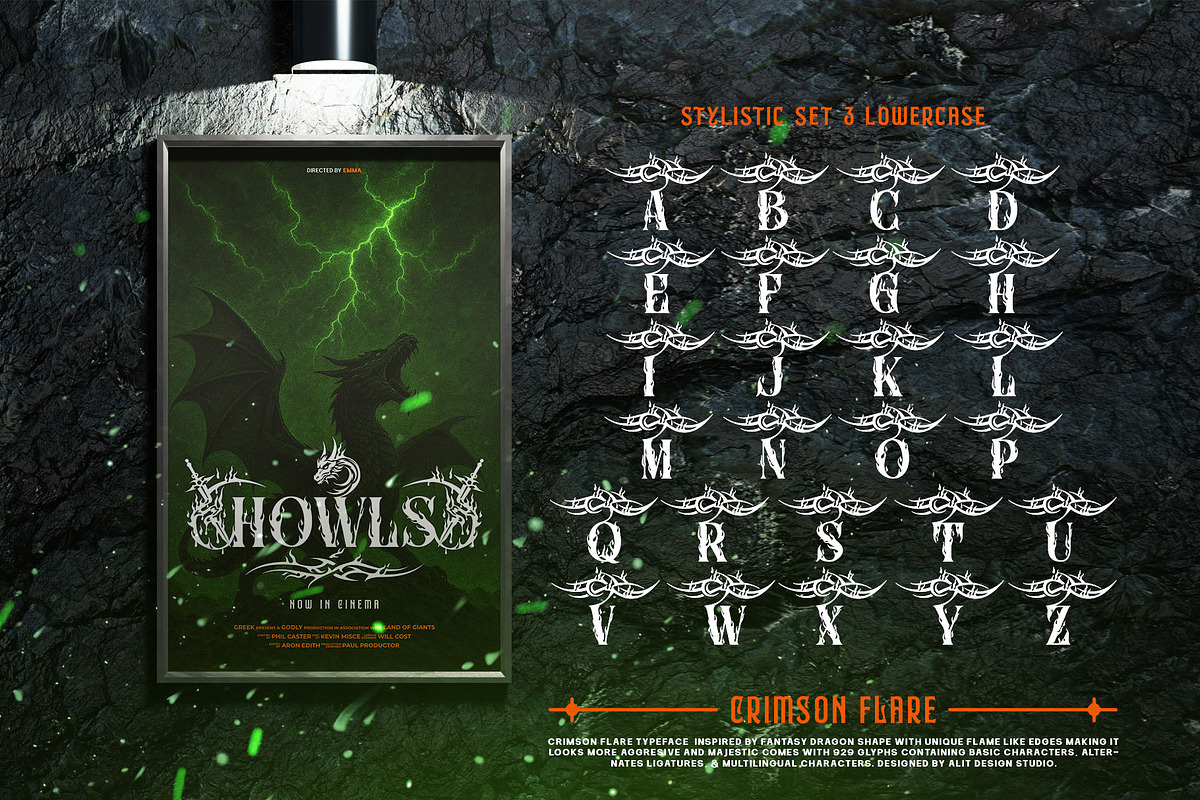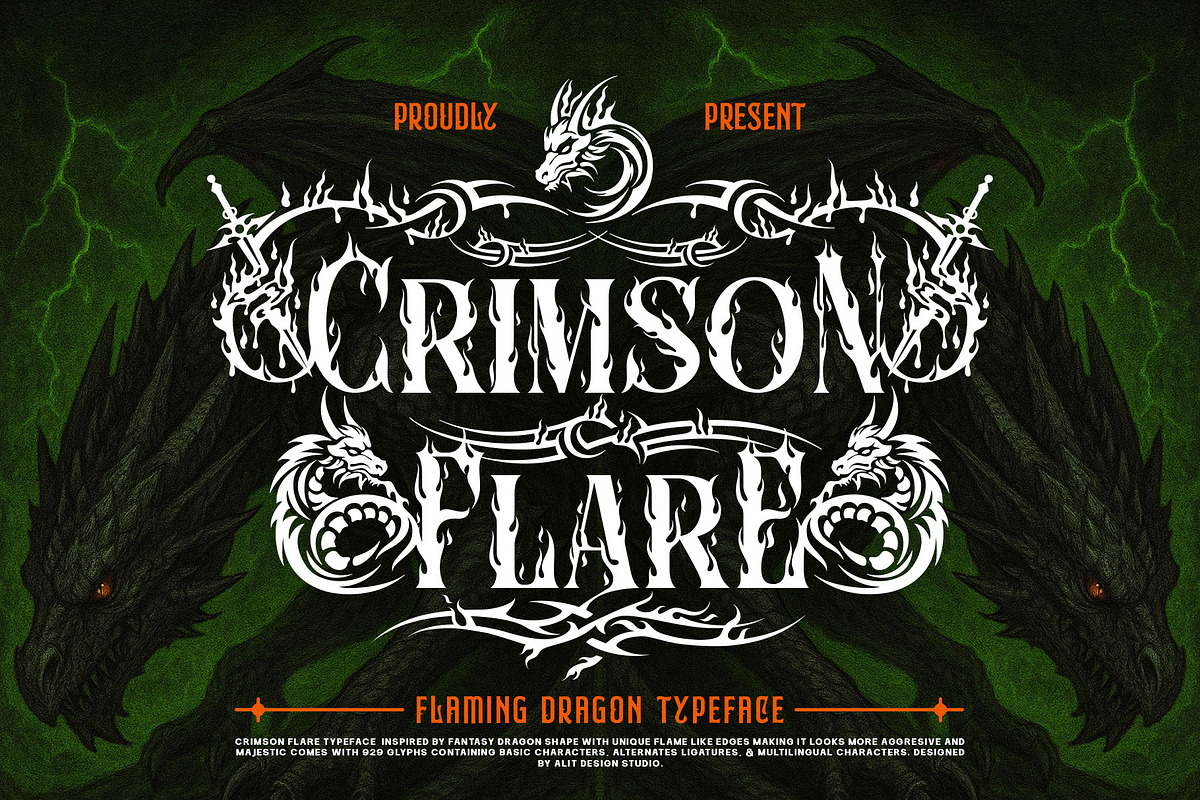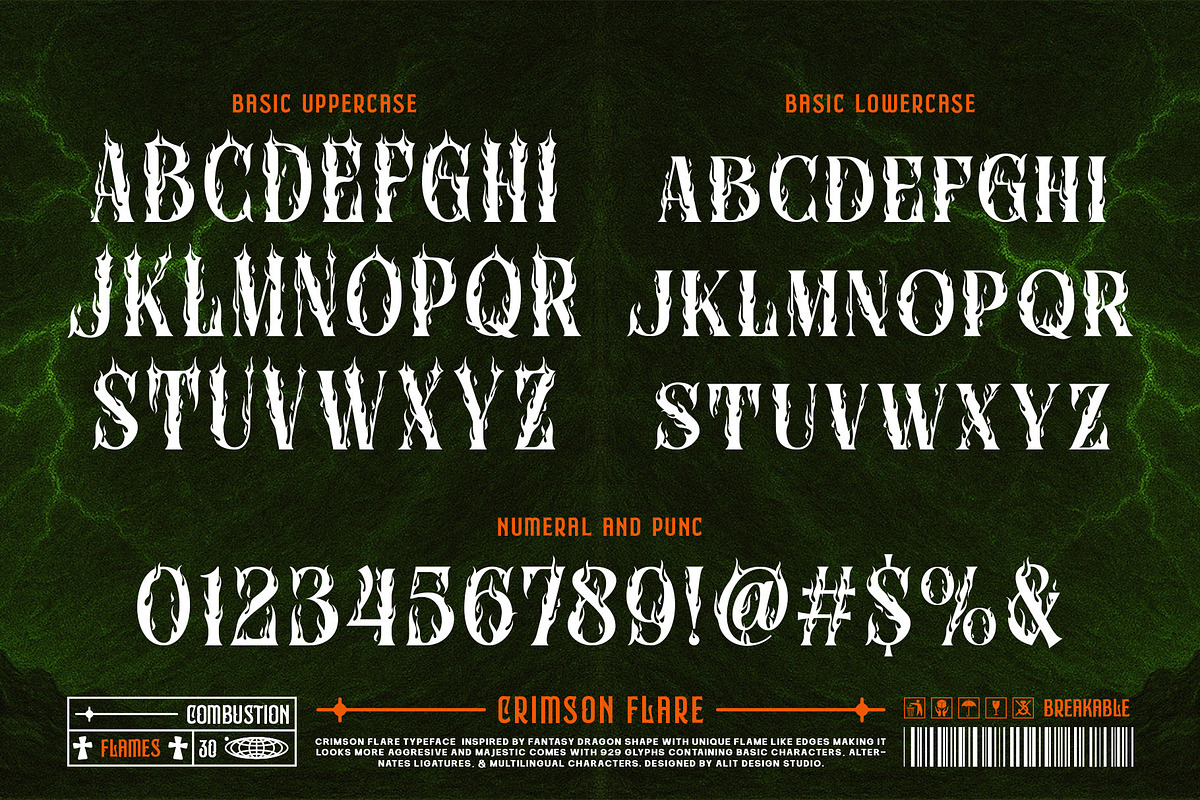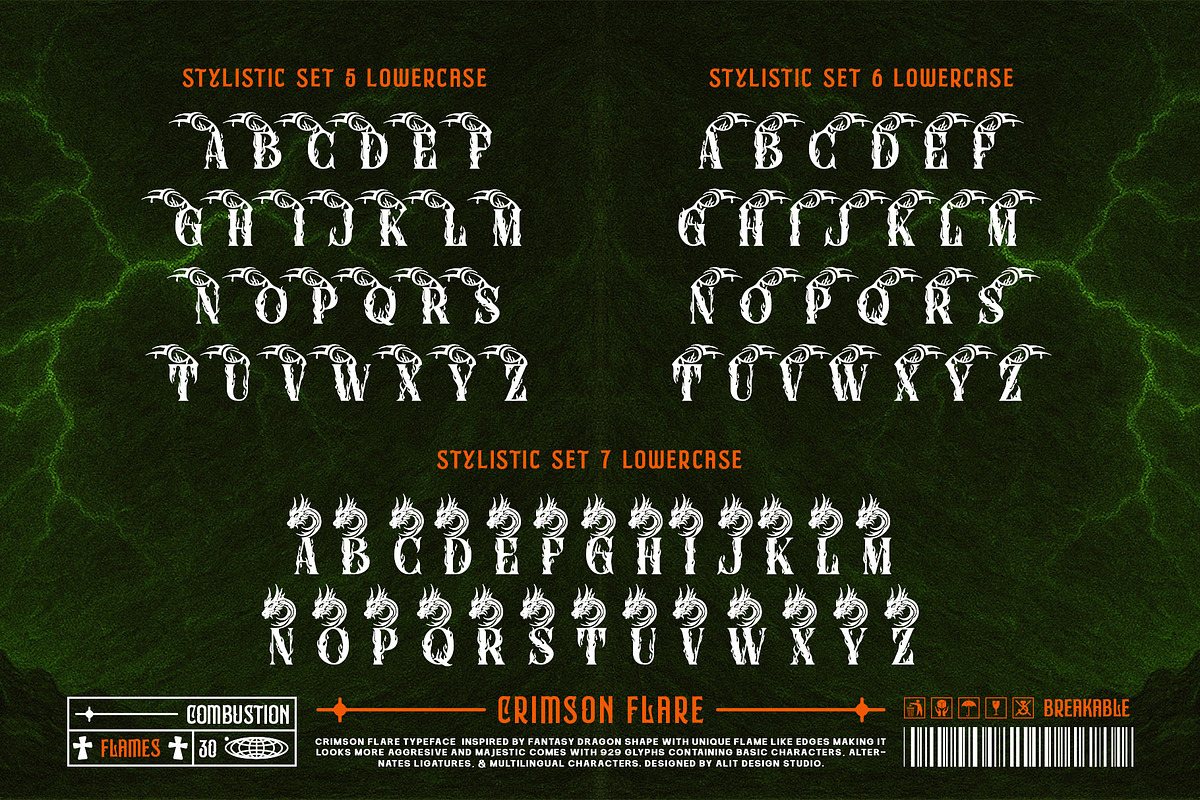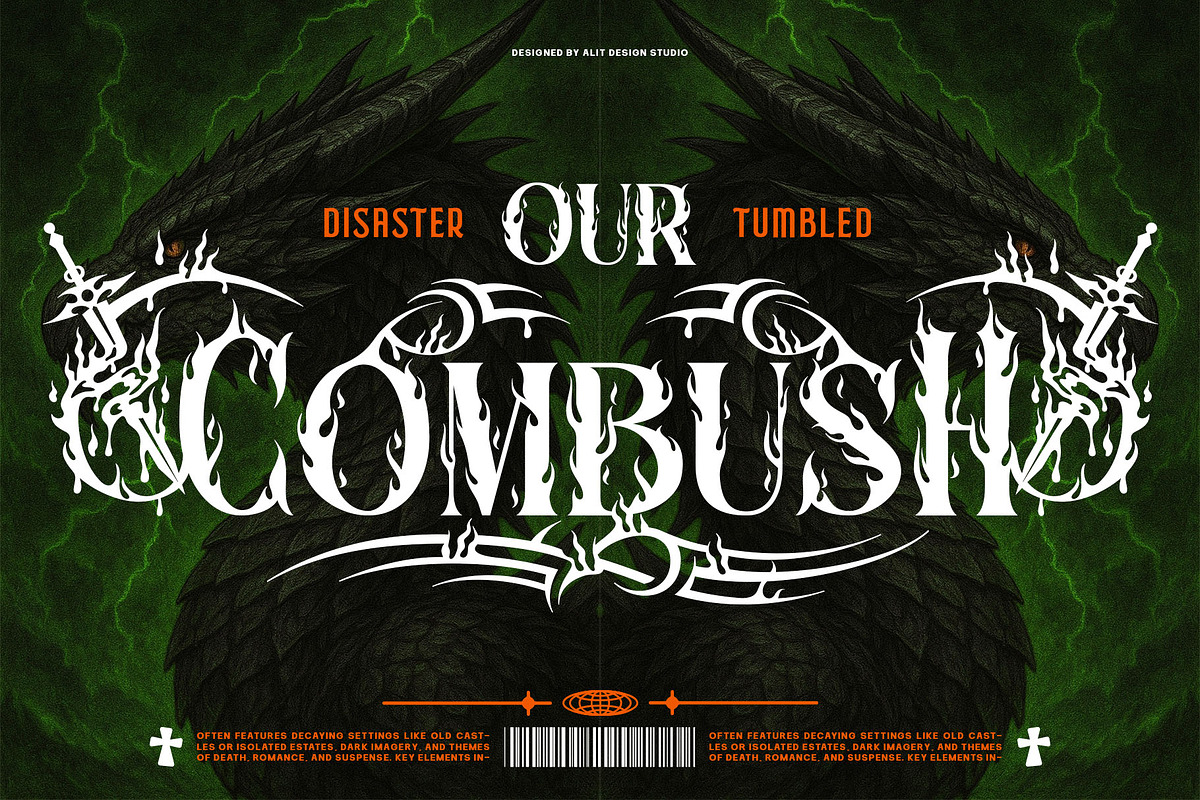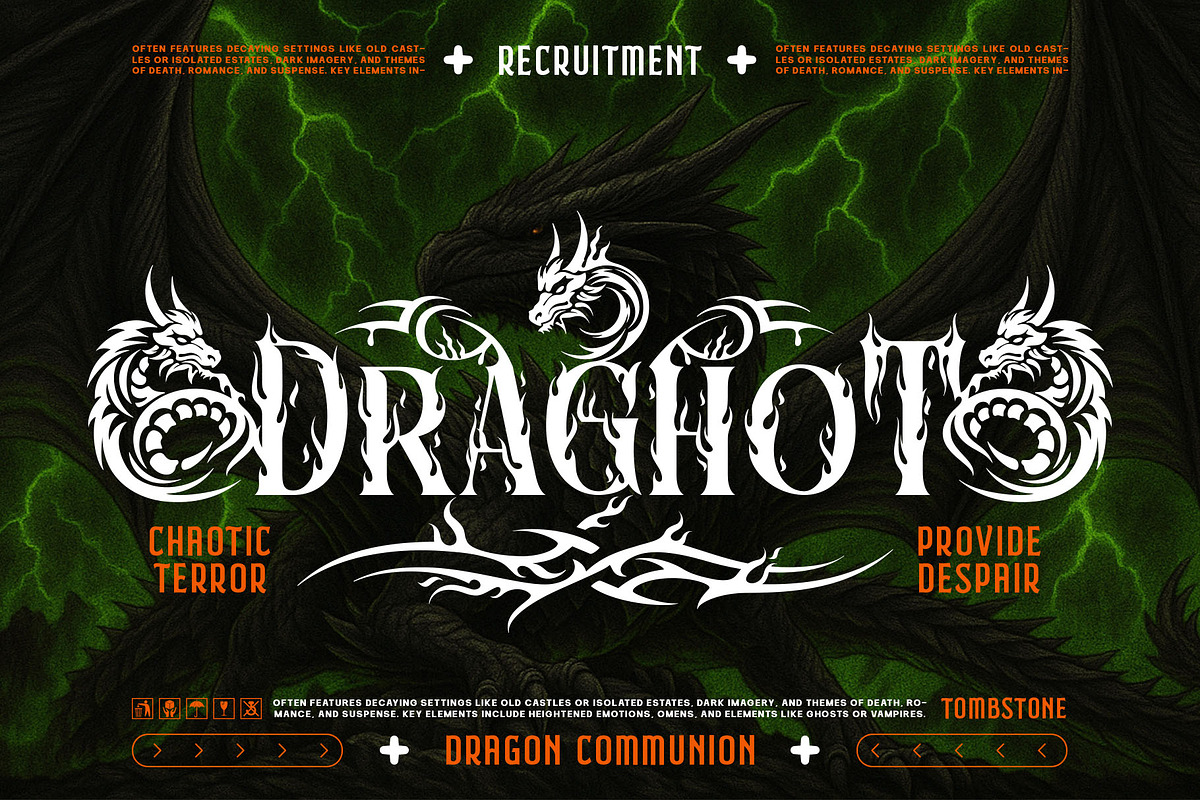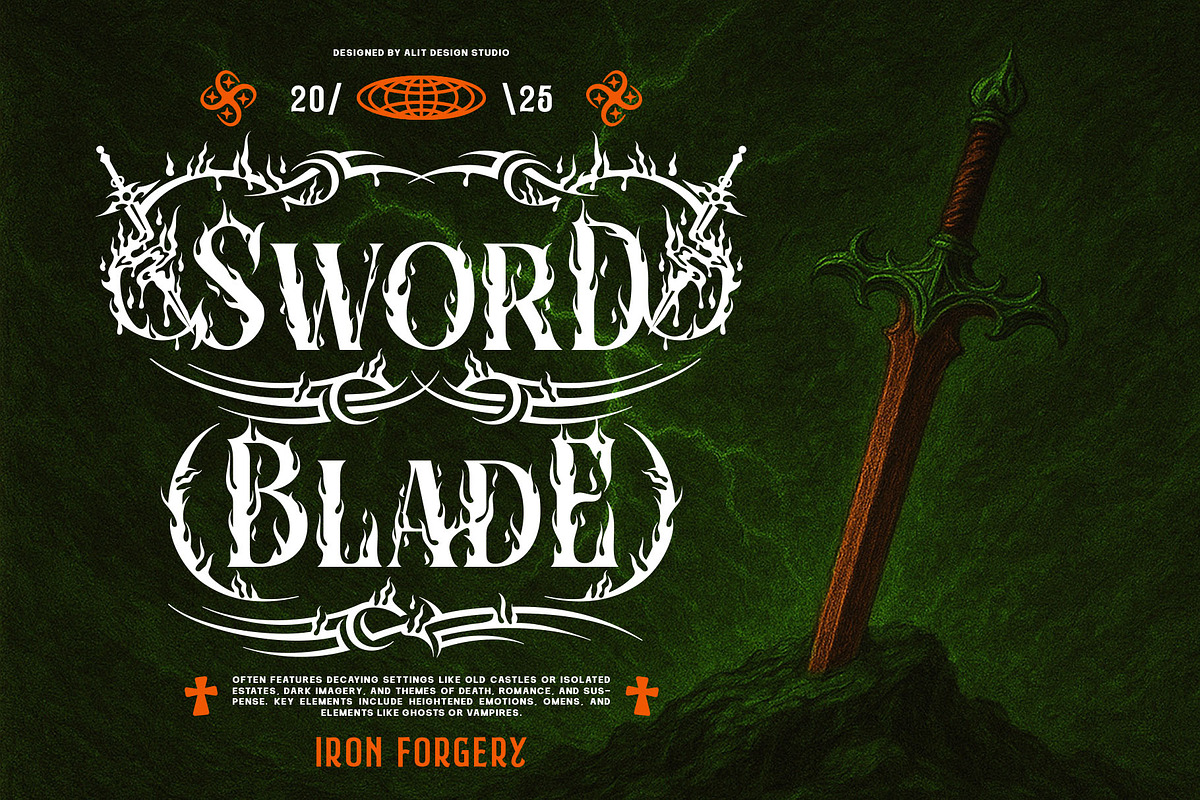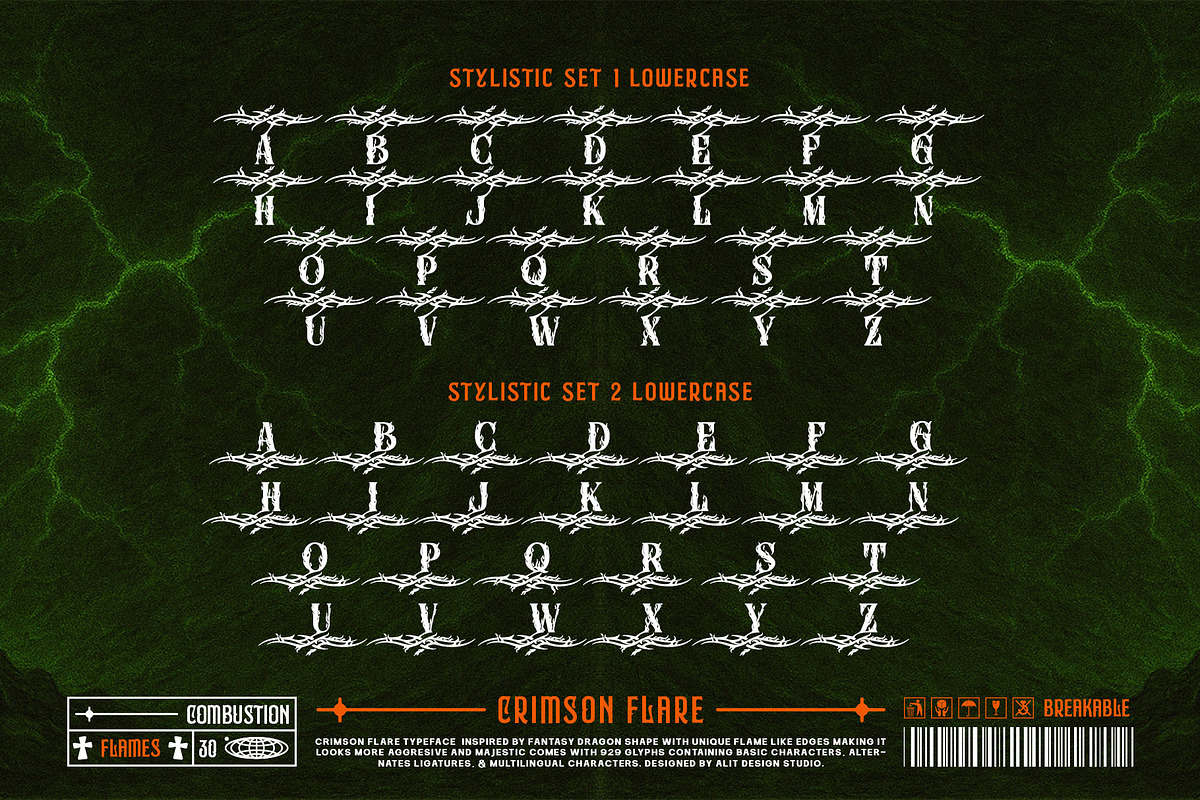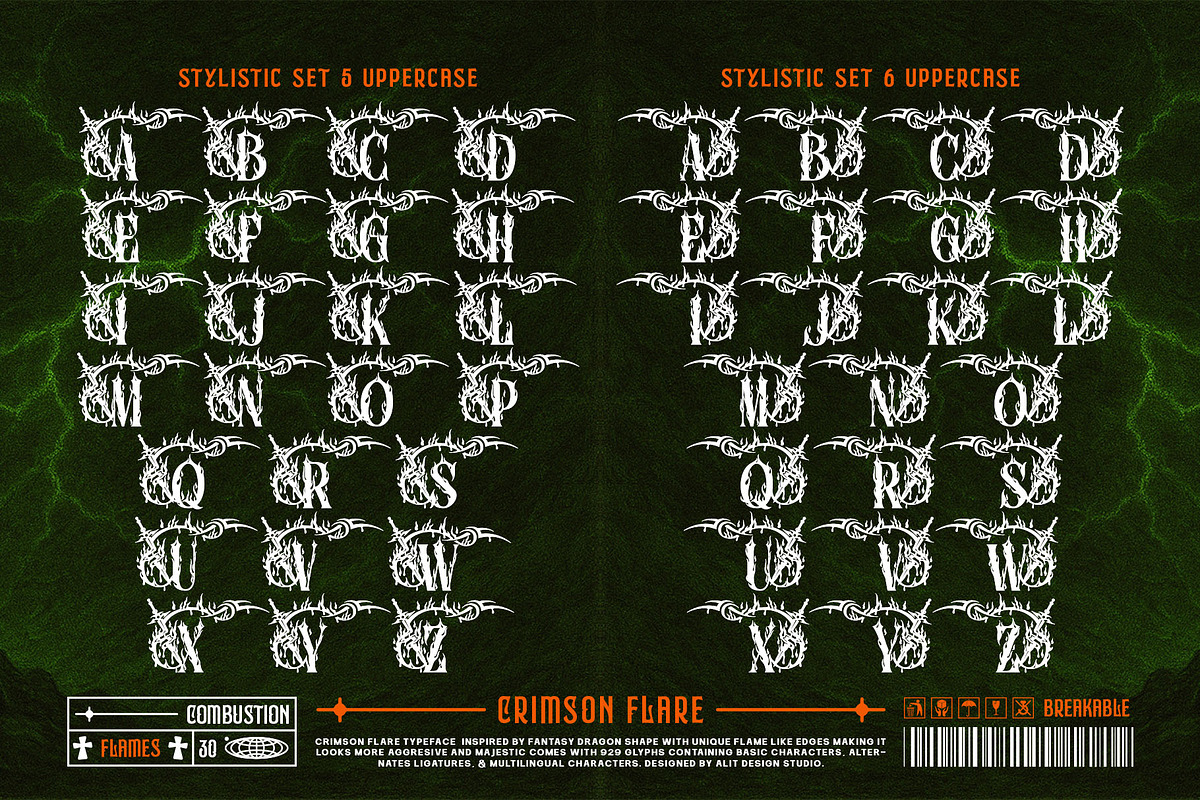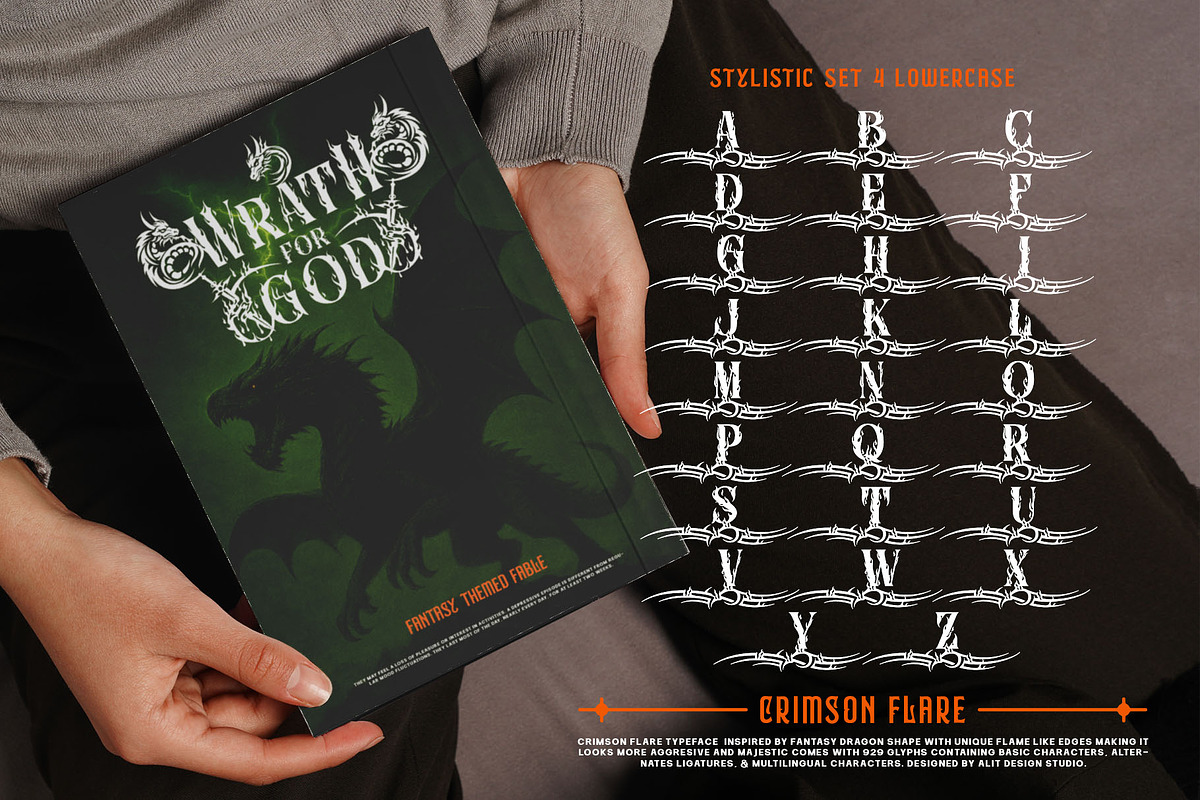
Crimson Flare Typeface
Crimson Flare Typeface: A Legend Forged in Fire & Steel
Unleash a torrent of dark fantasy with Crimson Flare, a powerful display typeface that bleeds aggression and majesty. Inspired by the raw power of dragons and the sharp edge of gothic steel, this font is a complete arsenal for creating legendary designs.
Ignite your projects with Crimson Flare, a typeface born from myths and forged in dragon's fire. This font is not just a set of letters; it's a toolkit for building worlds. The baseline characters feature sharp, flame-like edges, giving every word an aggressive and powerful feel.
But the true magic lies in its vast array of alternates. With a massive 929 glyphs, Crimson Flare allows you to customize your text like never before.
What You Get (Features):
- Base Character Set: A complete set of Basic Uppercase, Basic Lowercase, Numerals, and Punctuation, all infused with a fiery, sharp style.
- Four Massive Stylistic Sets (Uppercase): This is where the beast is truly unleashed.
- Stylistic Sets 1 & 2 (Draconic): Instantly transform your letters with breathtaking alternates featuring intricate dragon heads, perfect for logos and epic titles.
- Stylistic Sets 3 & 4 (Gothic Metal): Arm your text with a brutal edge using alternates decorated with swords, thorns, and barbed, spiky ligatures.
- Alternate Ligatures: A collection of special ligatures to add even more custom flair and connection between your letters.
- Multilingual Support: Comprehensive language support to ensure your message is heard across the globe.
Crimson Flare is built for any project that demands a dark, powerful, and epic aesthetic. It's the perfect choice for:
- Band Logos (Metal, Rock, Doom)
- Apparel & T-Shirt Design
- Fantasy Game Titles & Logos
- Movie Posters (Horror, Fantasy, Action)
- Album Covers
- Book Covers (Dark Fantasy, Gothic Romance)
- Tattoo Designs
- Occult or Mystical Branding
Stop whispering. Start roaring. Harness the power of Crimson Flare and set your designs ablaze today.